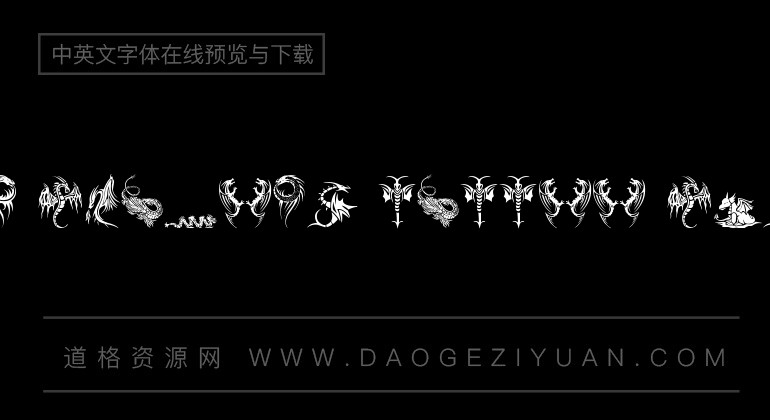
Tribal Dragons Tattoo Designs
Design Tribal Dragons Tattoo Designs font design is a style with ancient cultural connotations. It takes dragon as the theme and uses simple and expressive lines to express the power and charm of dragons. This kind of font design can be used to make tattoo patterns with deep traditional cultural flavor, and can also be used to make clothing and accessories with traditional cultural connotations.
Tribal Dragons Tattoo Designs is a very good handwriting art font, with a good visual sense, suitable for cultural propaganda design, commercial brand advertising and product packaging design and personalized text typesetting and other more scenes.